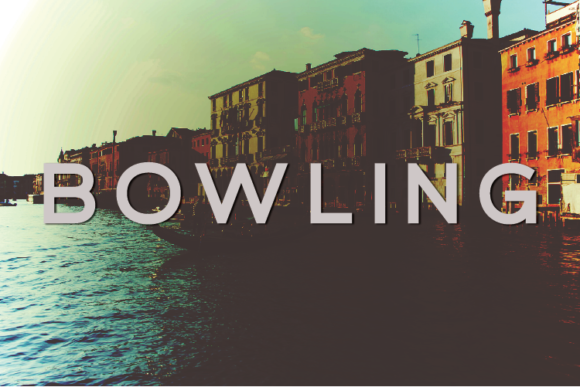
Discover the Perfect Blend of Creativity with Apple Juice Font
Remember that moment when you stumble upon the perfect font to match your project’s vibe? It’s like finding a hidden gem in a treasure trove of design possibilities. For designers, the quest for the ideal font can be a thrilling adventure. And, we’re excited to introduce you to a game-changer – Apple Juice Font, a charming sans serif font that’s about to become your new best friend.
This delightful font is not just a pretty face; it’s designed to bring a modern twist to your designs. With Apple Juice Font, you can add a touch of whimsy and playfulness to your projects, making it a valuable addition to any designer’s toolkit. Whether you’re working on a branding project, creating a social media campaign, or designing a fun event, this font is sure to inspire and delight.
Apple Juice Font Key Features
- Font Family: Apple Juice is a sans-serif font family designed for digital use.
- Character Set: Supports a wide range of languages, including Latin, Cyrillic, and Greek scripts.
- Resolution: Designed for high-resolution displays, Apple Juice looks great at resolutions up to 4K (3840 x 2160 pixels).
- Font Size: Available in various font sizes, ranging from 8pt to 120pt, making it suitable for a wide range of applications.
- Unique Characteristics: Apple Juice features a unique blend of modern and minimalist design elements, including clean lines, rounded edges, and a friendly feel.
Apple Juice Font Review
I recently had the chance to work with the Apple Juice font, and I must say, it was a mixed bag for me. ✨ Here are some things that worked well:
- Unique Character: Apple Juice has a distinct, fun feel to it that’s perfect for projects that need a bit of whimsy.
- Variety of Styles: The font comes in several weights and styles, giving designers plenty of options to choose from.
- Legibility: Despite its playful nature, Apple Juice is still easy to read, even at smaller font sizes.
However, there are also some limitations to consider: ⚠️
- Limited Versatility: While Apple Juice is great for fun projects, it might not be the best choice for more serious or formal designs.
- Not Ideal for Body Text: Due to its playful nature, Apple Juice can be distracting when used as body text, making it harder to read.
- No Comprehensive Character Set: Apple Juice’s character set is limited, which can cause issues when working with languages that require a wide range of characters.
Overall, Apple Juice is a fun and versatile font that’s perfect for projects that need a bit of personality. While it has its limitations, it’s still a great choice for designers looking to add some flair to their work.
For the most out of the Apple Juice font, use it in bold or italic styles to add emphasis to your text. You can also use it in combination with other fonts to create a unique and eye-catching design. Experiment with different font sizes and colors to find the perfect balance for your design.
The Apple Juice font is perfect for creating playful and youthful designs. Use it in logos, social media graphics, and marketing materials to add a fun and energetic vibe. It’s also great for creating eye-catching titles and headings in presentations and documents.